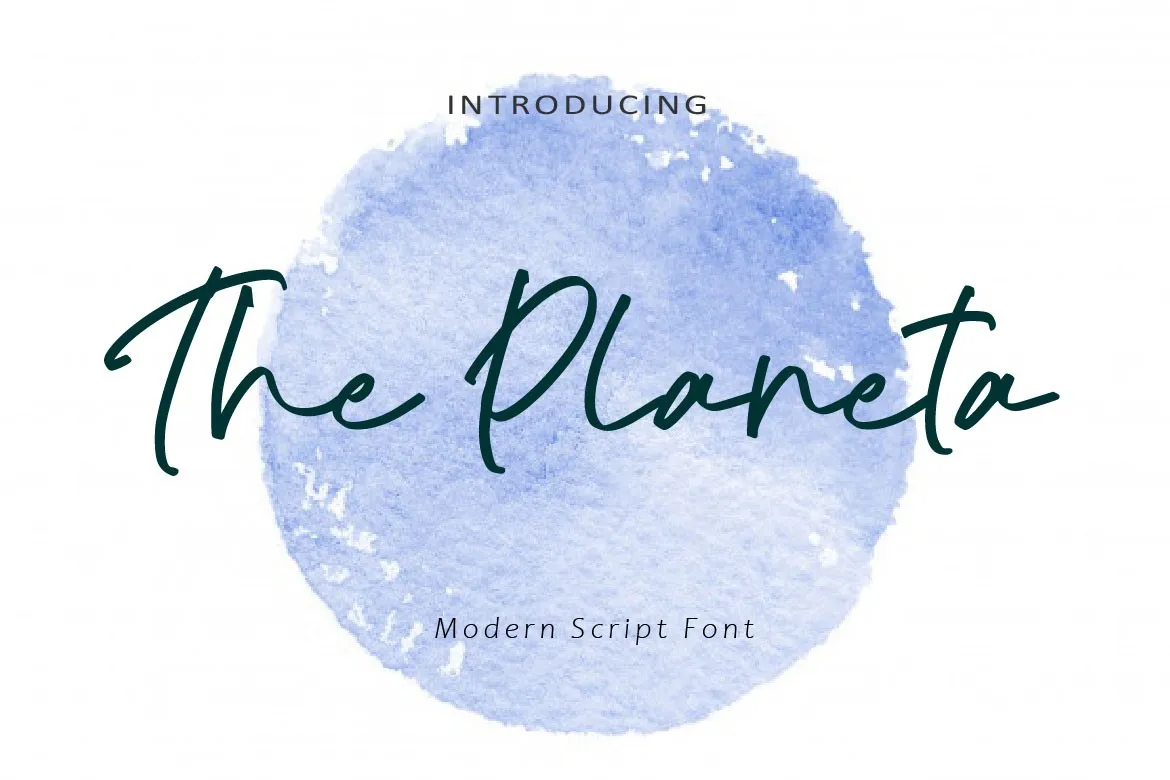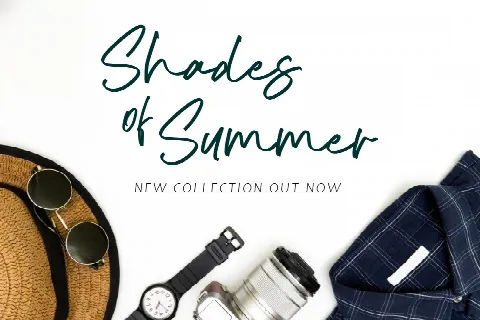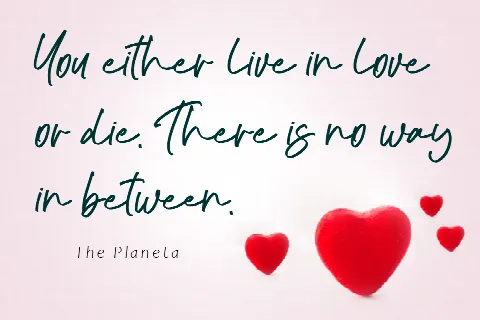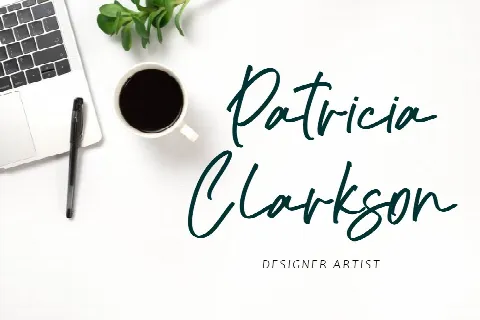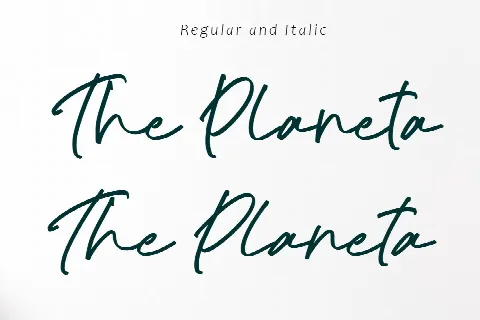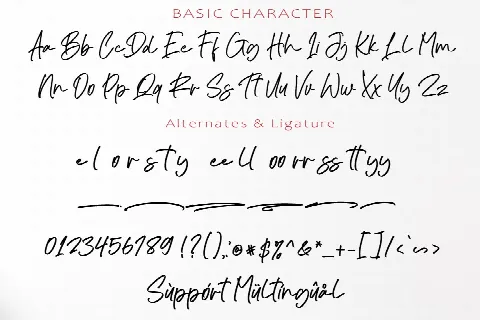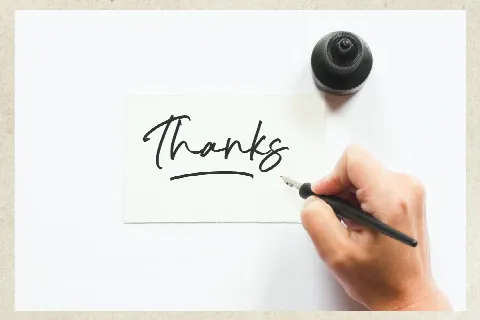
The Planeta
2 stylesBy Amin Mario
Introducing
The Planeta Font This font was created to look as close to a natural handwritten script as possible by including some alternates lowercase, ligature and underlines. Built in Opentype features, this script comes to life as if you were writing it yourself.
Comes with regular and italic. Also support multilingual.Perfect for any awesome projects that need hand writing taste. It's highly recommended to use it in opentype capable software - there are plenty out there nowadays as technology catches up with design. Other than Photoshop, Illustrator and Indesign, many standard simple programs now come with Opentype capabilities - even the most basic ones such as Apple's Text Edit, Pages, Keynote, iBooks Author, etc. Even Word has found ways to incorporate it.
The Planeta Italic · 400
The Planeta · 400